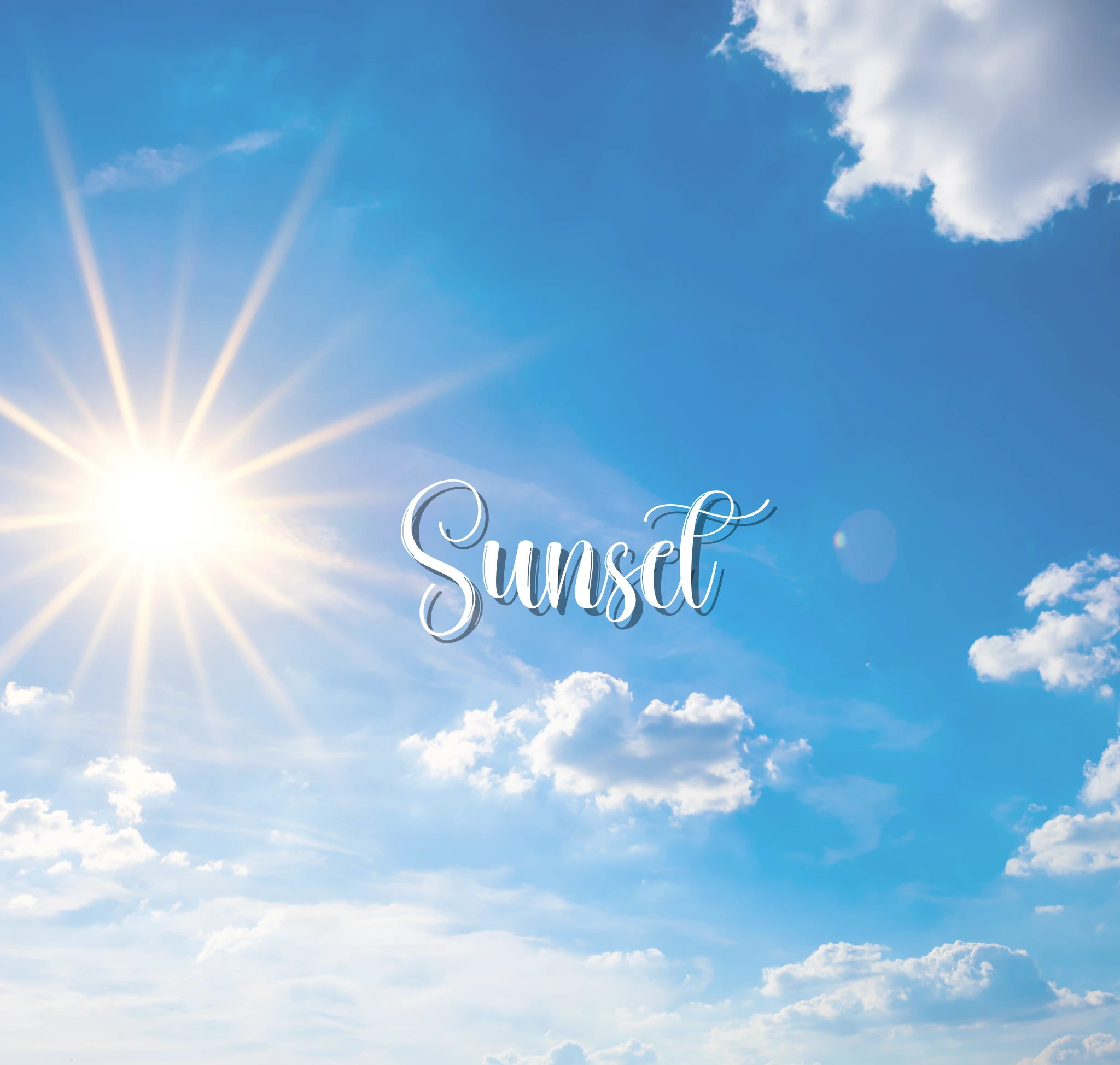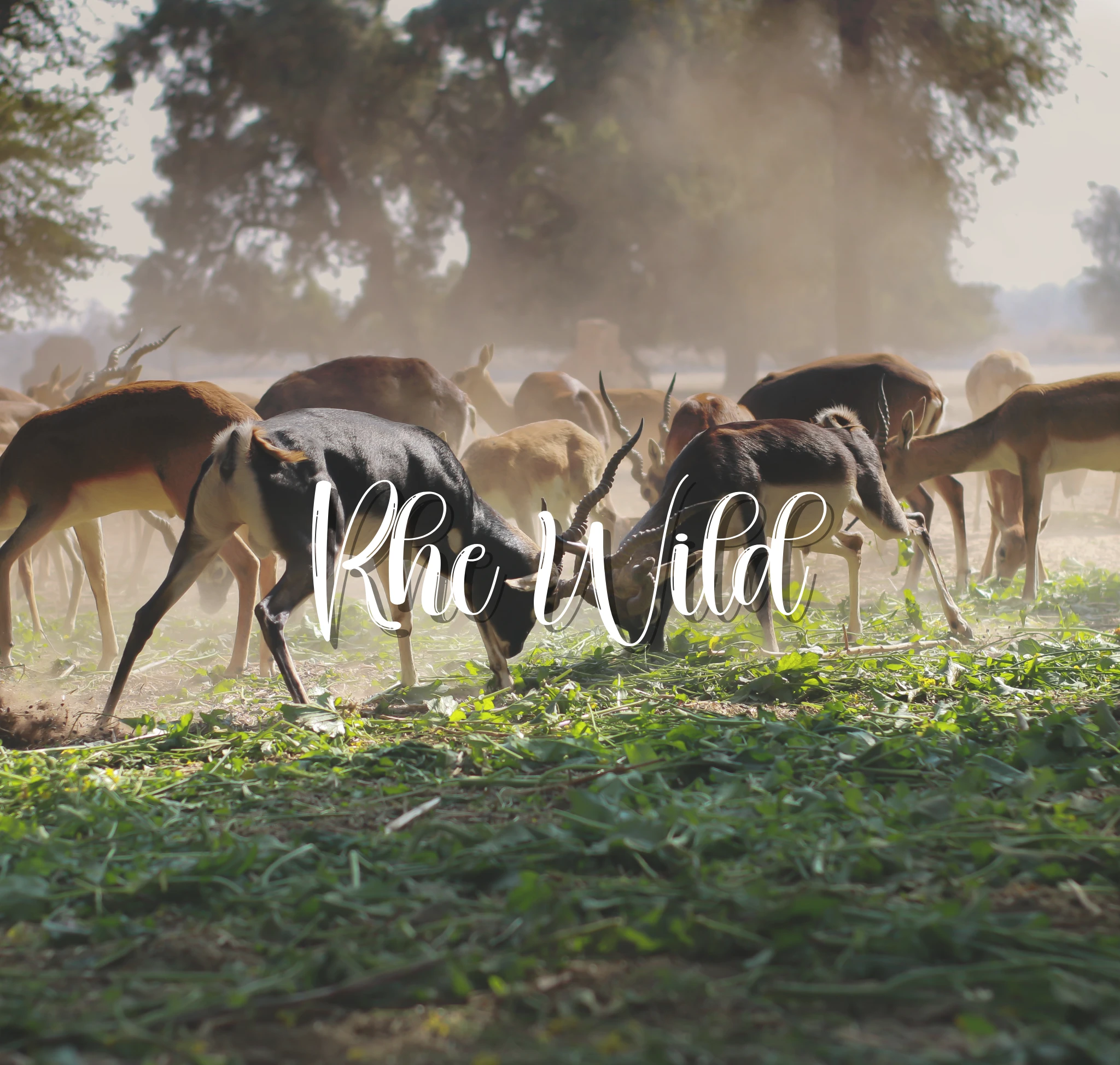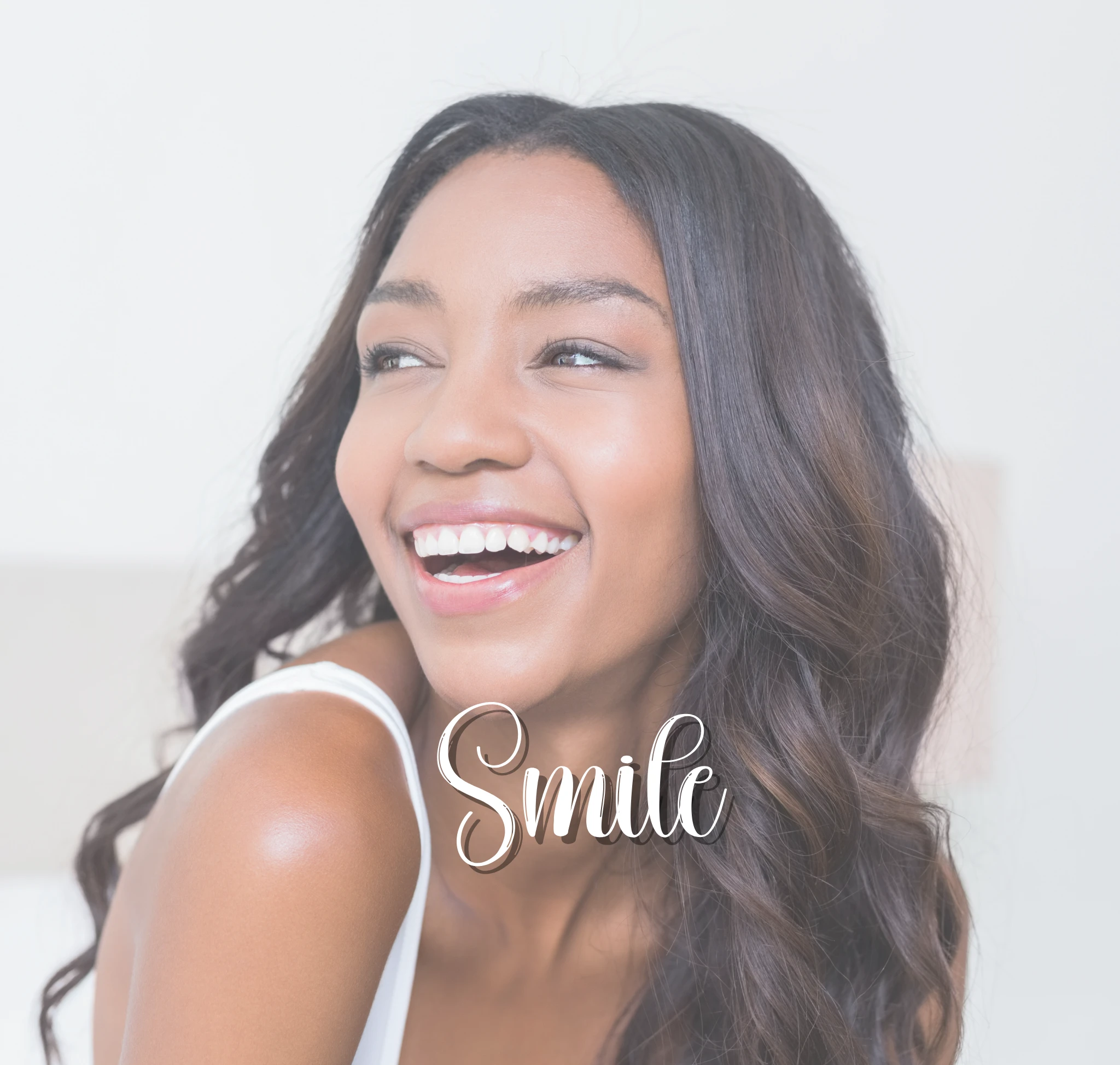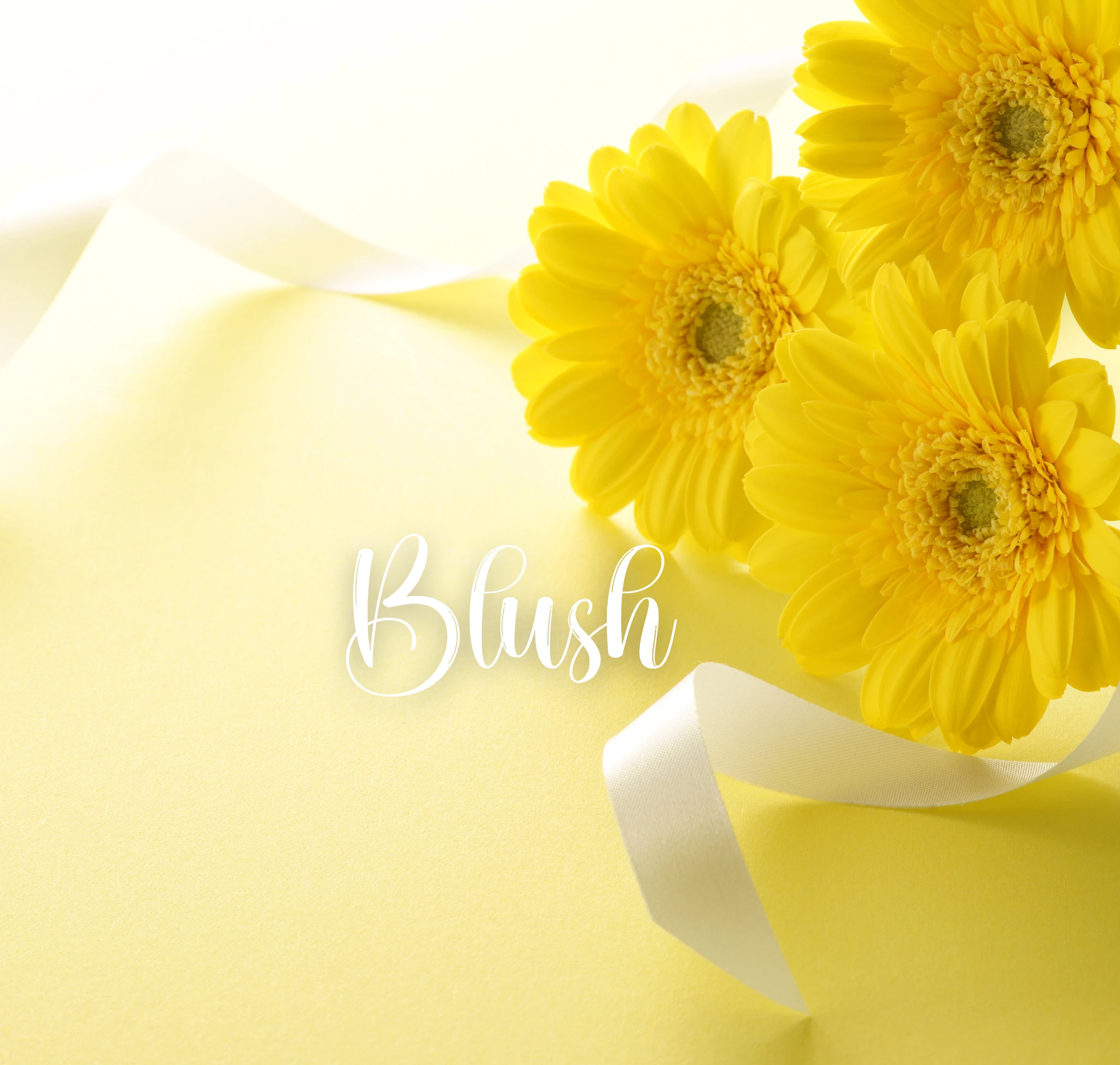
Transform your designs with Beautiful Fonts ā a versatile collection of elegant handwritten and script typefaces created to bring charm and sophistication to any project. With flowing curves and refined details, these fonts are perfect for creatives, bloggers and small businesses who want their text to look polished yet approachable.
Use Beautiful Fonts for wedding invitations, greeting cards, product packaging, logos, branding materials, inspirational quotes, blog headers and social media graphics. Thanks to its excellent readability and multiple stylistic options, it works beautifully in both print and digital applications.